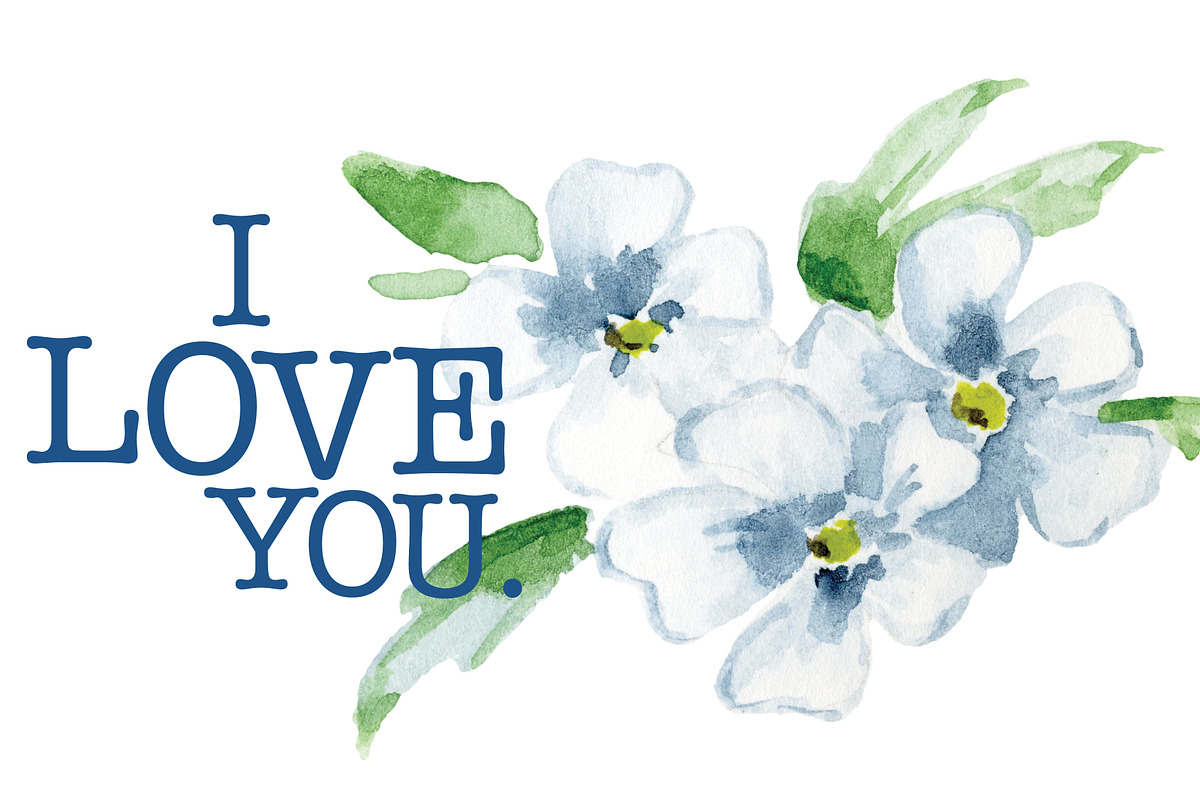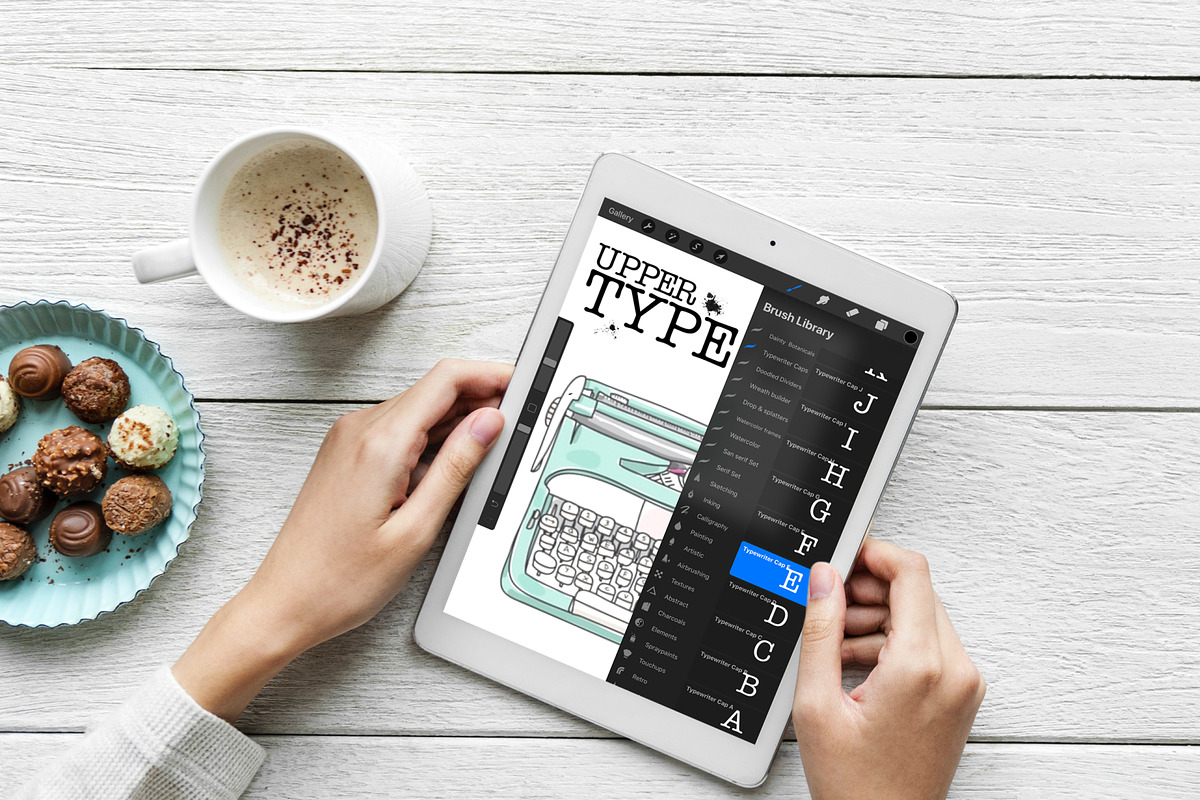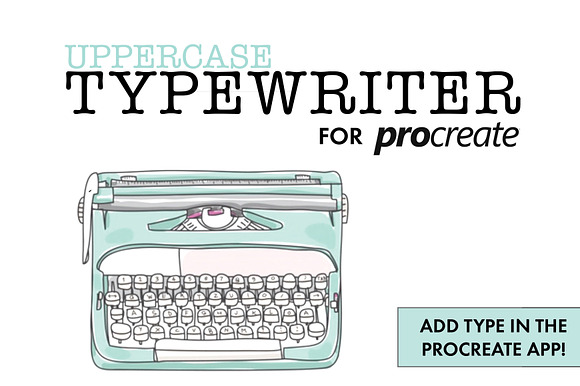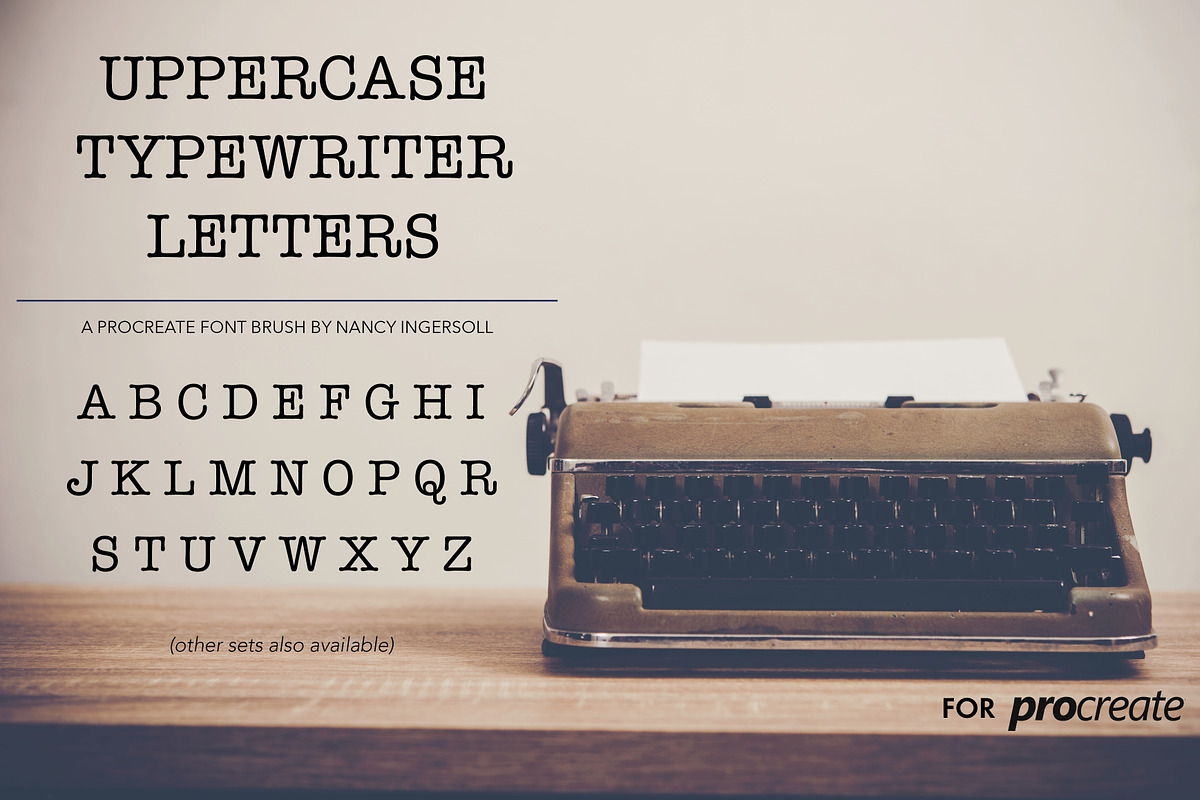
Procreate Typewriter Font Uppercase
A typewriter font is a classic and must have for everyone, regardless of style or platform you work on. And yay, you can FINALLY add type to your image in the Procreate app with this set.
This special set of brushes eliminates one of the biggest frustrations of artists who use procreate because they allow you to add type to your artwork. This is not a brush for handlettering, but more of a stamp for adding type in a TYPEWRITER font to your image right inside the Procreate app. The baseline on these brushes is aligned, so when you use a guide, the bottoms will align if you use the same size for each brush and stamp on the guideline. You can choose the color, the size, and the opacity. Want the text to be straight? Think of the letters having a built in compass and know that the top will always be on top, regardless of how you have rotated the canvas (unless you go into the advanced settings and rotate the brush).
This set contains: Uppercase letters, plus special characters in a typewriter font. You can use this set for several foreign languages, including Spanish, German, French, and more (includes the ß eszett, Ç cédille, accents and more. For other sets and fonts, go to
- This set contains: Uppercase letters, plus special characters in a typewriter font.
- You can use this set for several foreign languages, including Spanish, German, French, and more (includes the ß eszett, Ç cédille, accents a